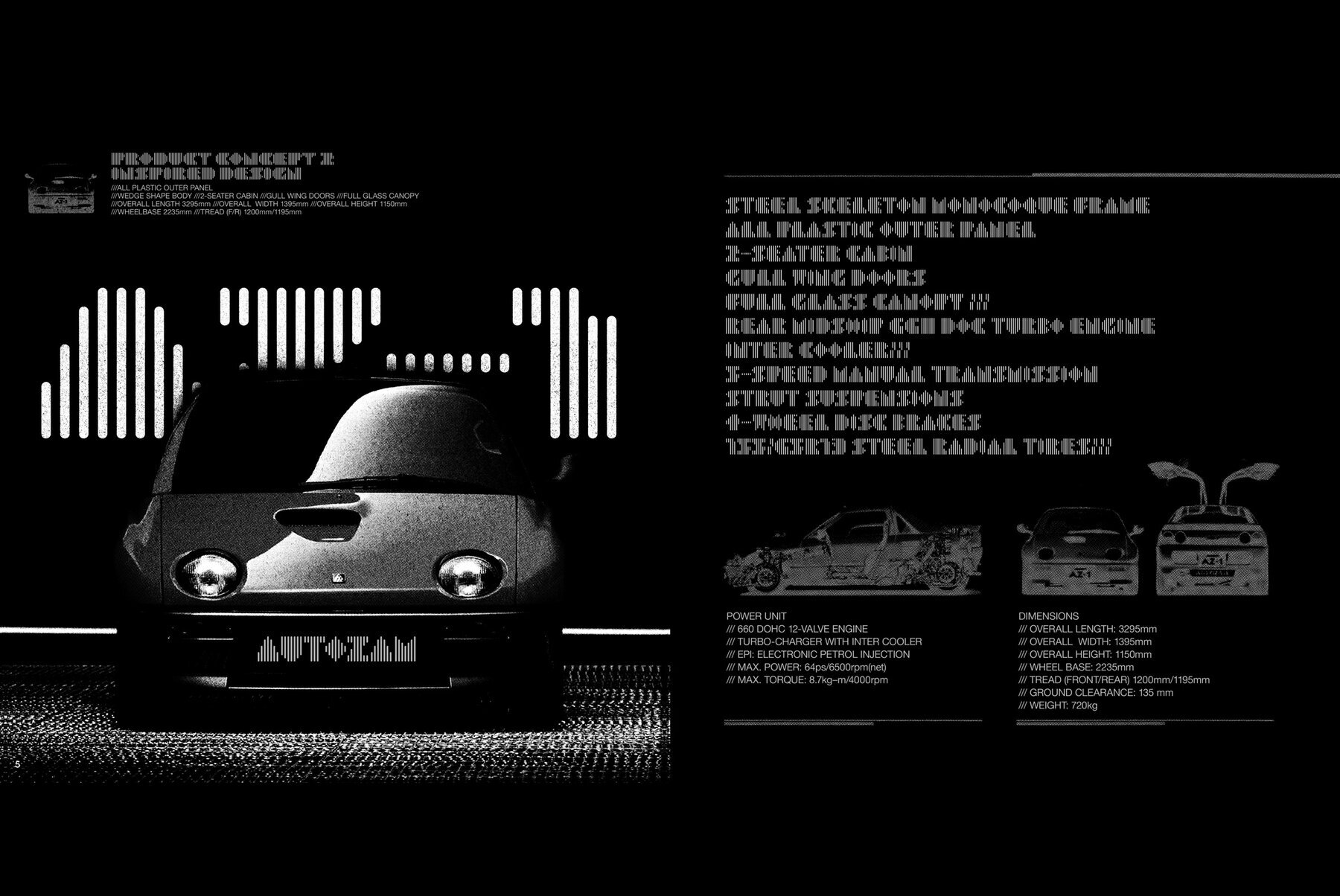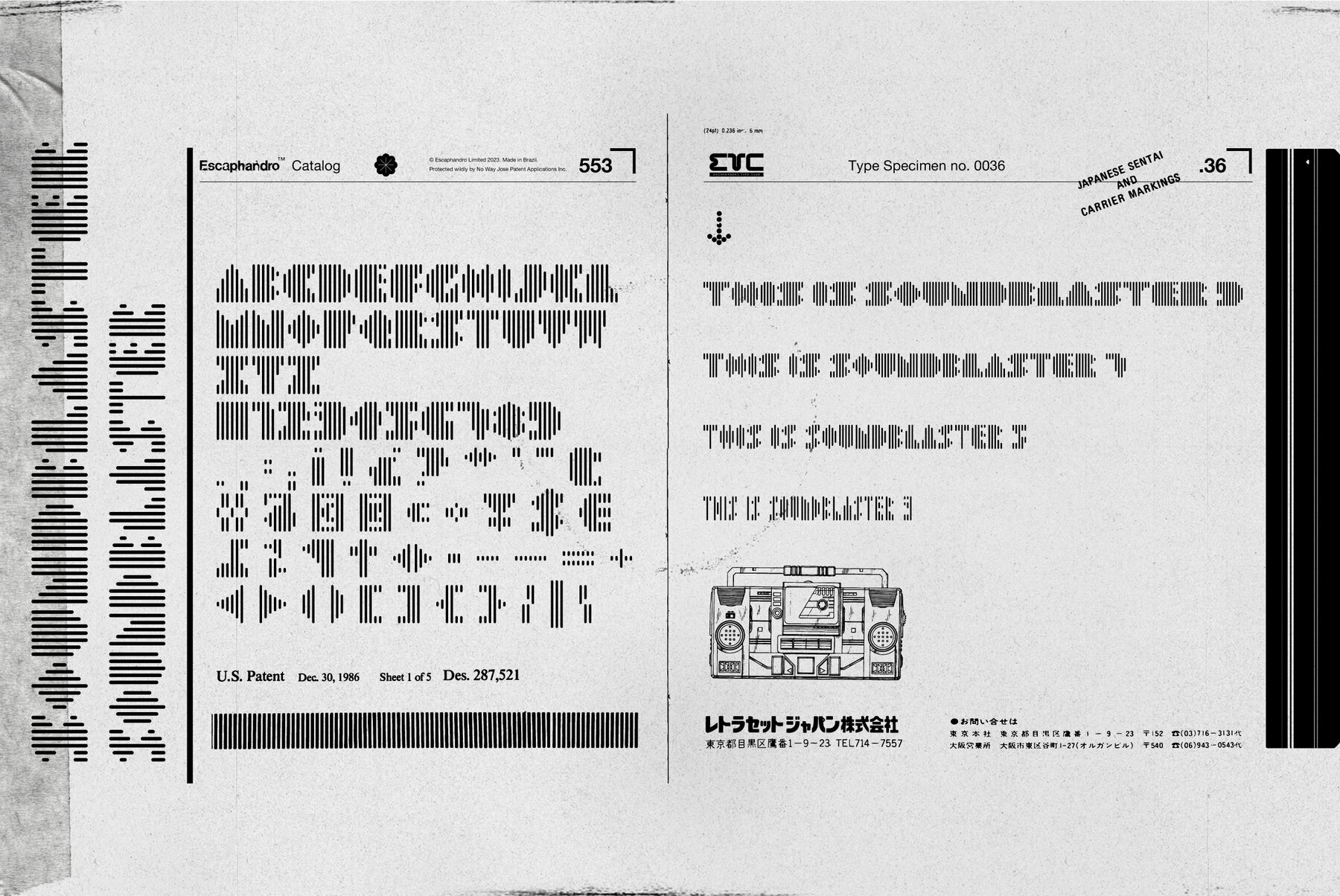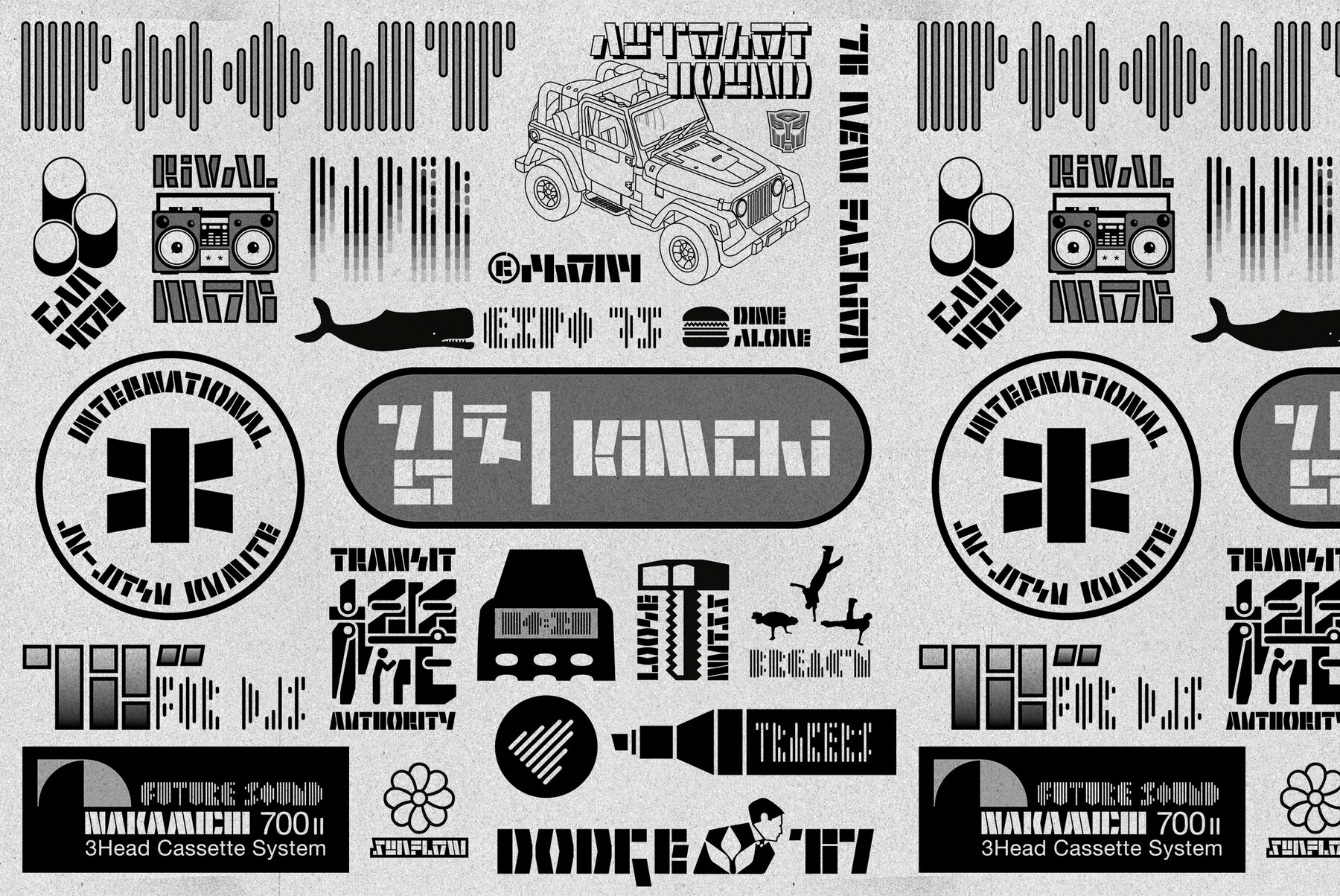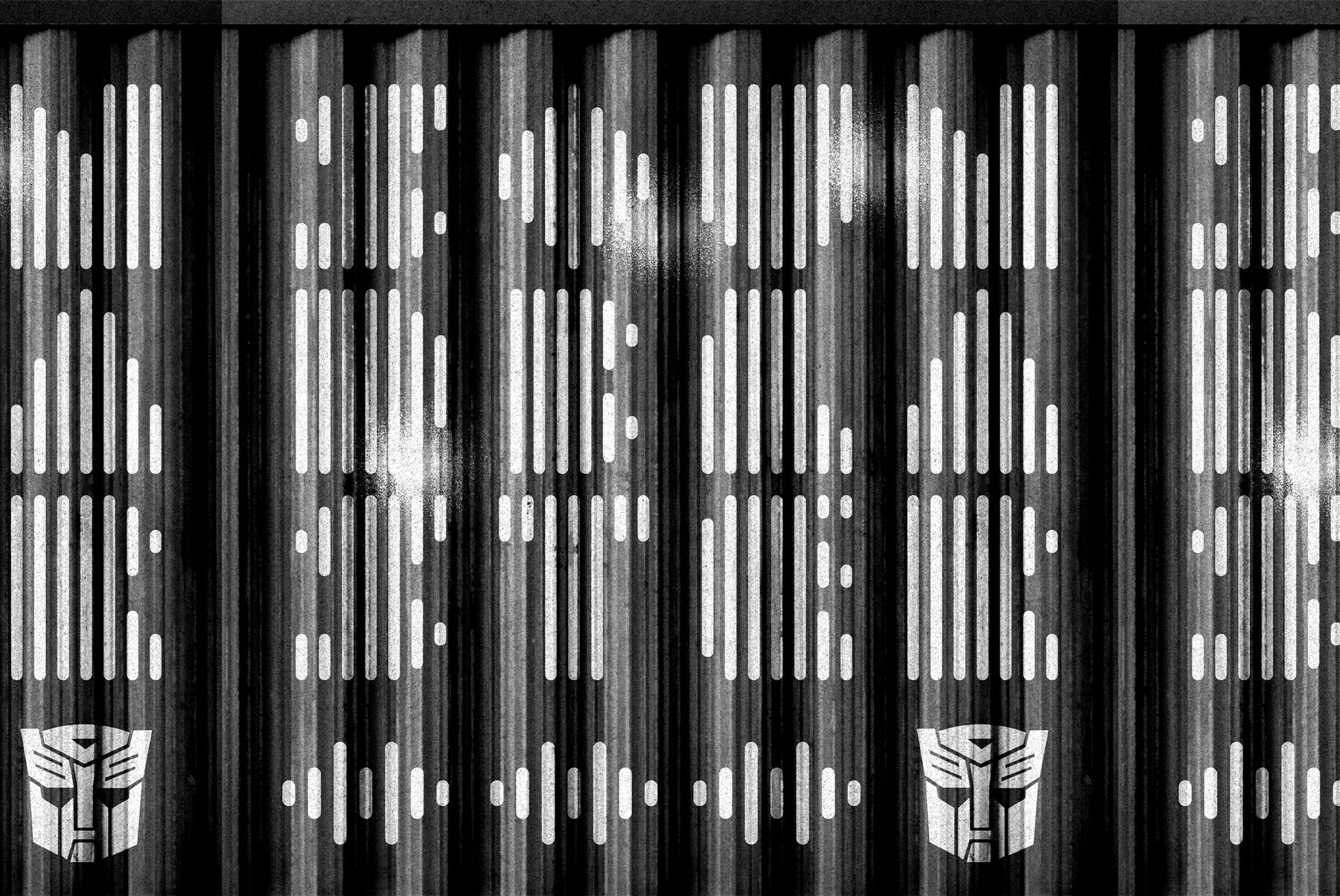
Soundblaster Font
Soundblaster is a modular typeface with 4 weights, inspired by sound graphic interfaces and speakers. Its retro-techno looks are perfect for stylish titles and logotype design.